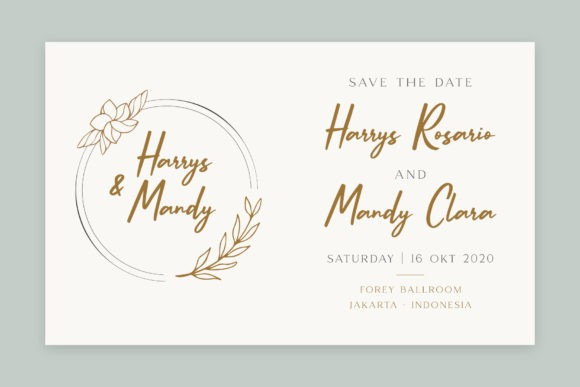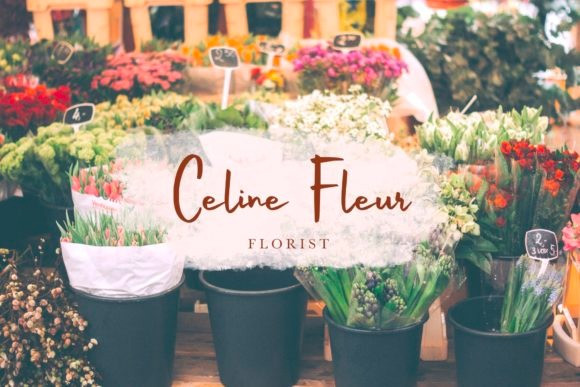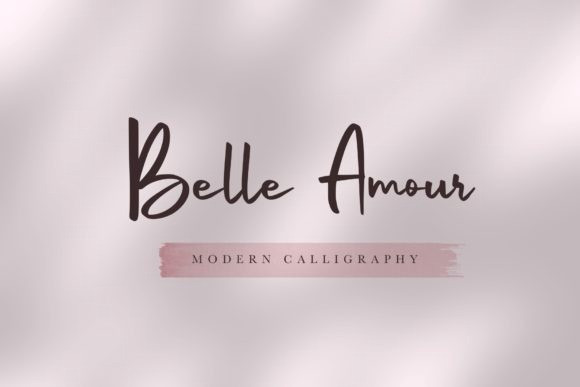
Belle Amour Font
Belle Amour Font is a delicate and exquisite handwritten font, designed to elevate each of your creations. Relaxed and timeless, this font makes the fittest choice no matter the project.